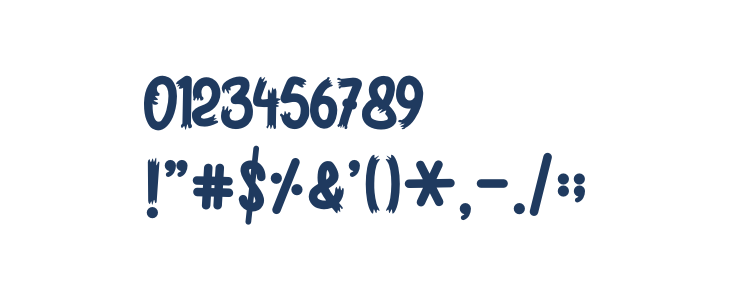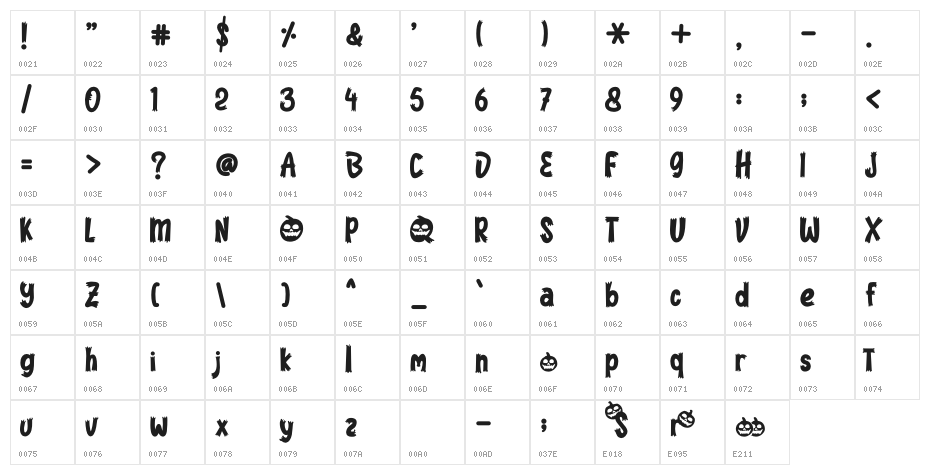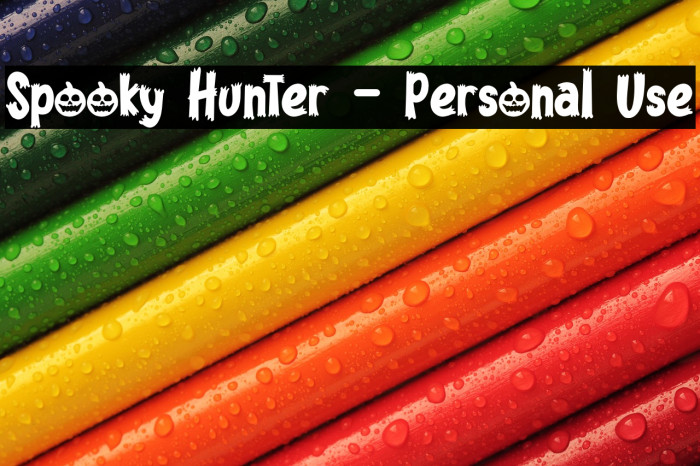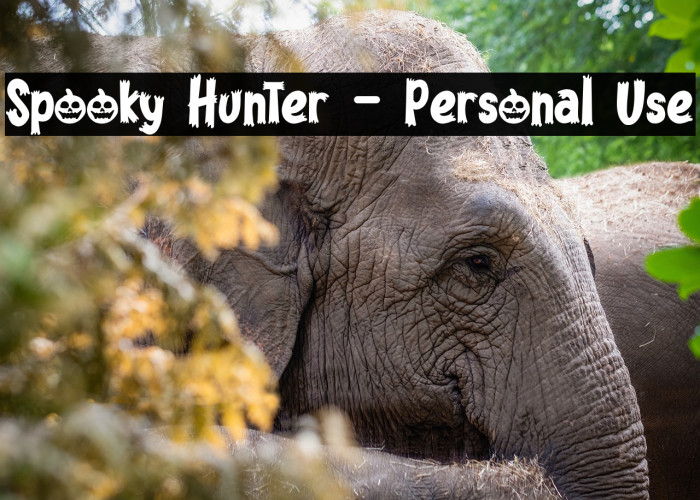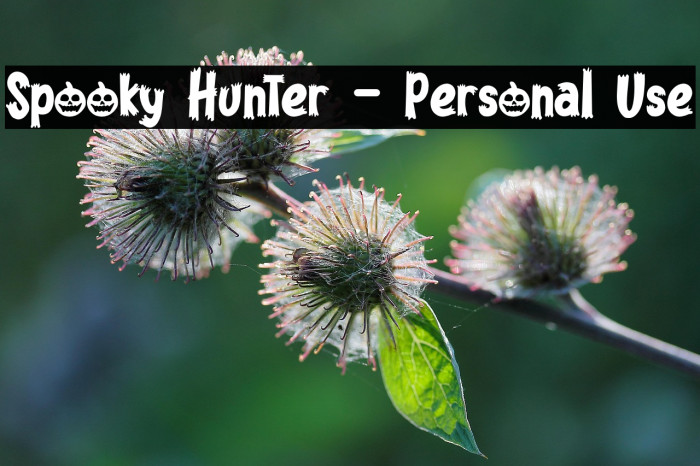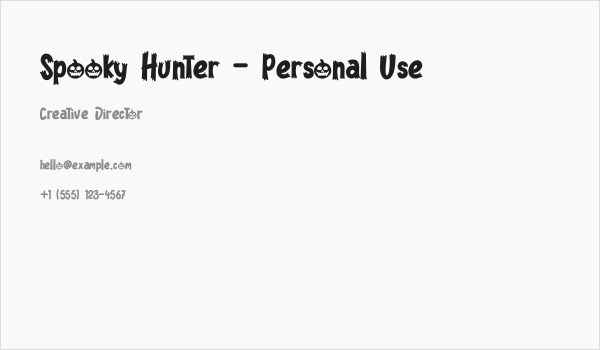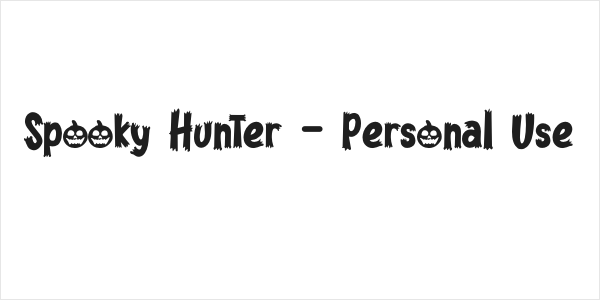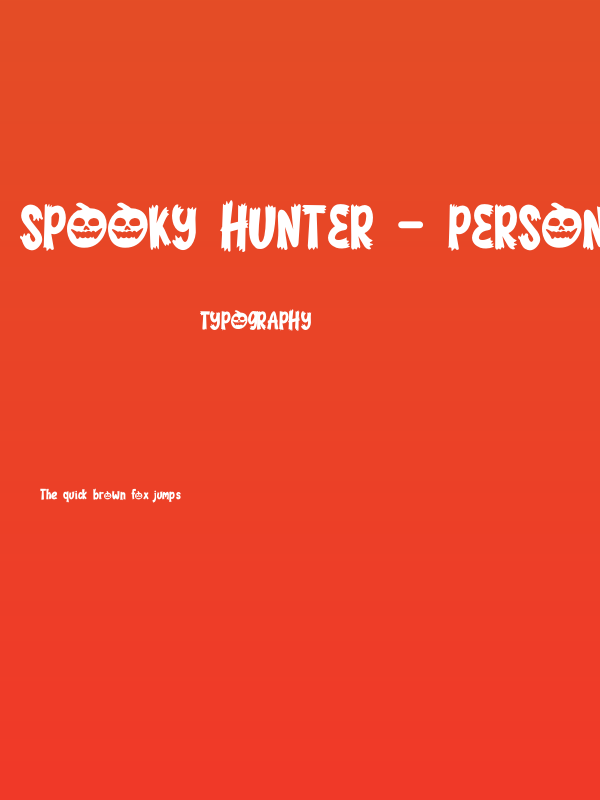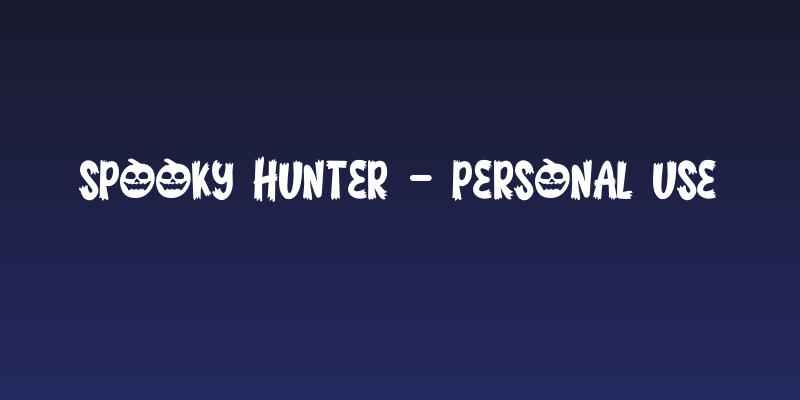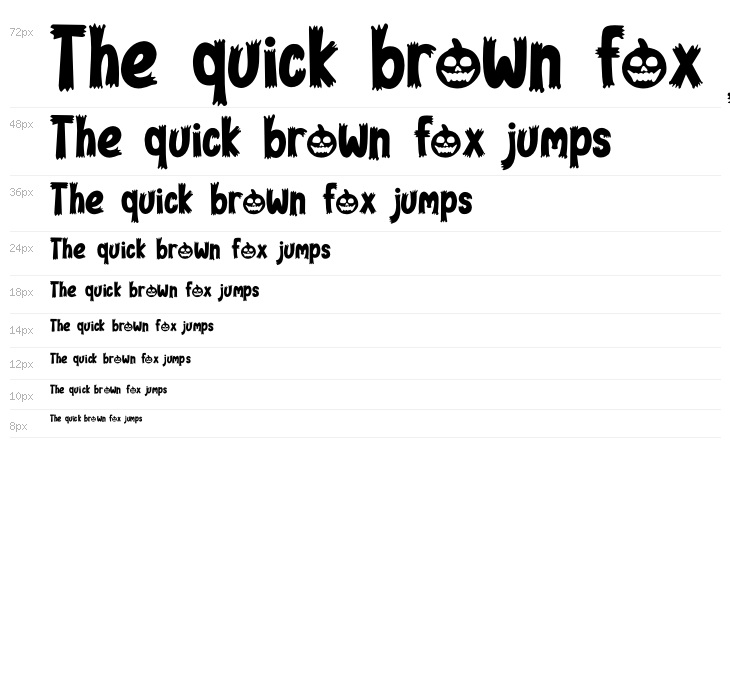
Spooky Hunter - Personal Use Font
Spooky Hunter - Personal Use Description
This font features a playful and spooky design, with jagged edges and a bold, irregular style that evokes a sense of Halloween fun. The uppercase letters are particularly striking, with some characters incorporating playful elements like pumpkin faces. The lowercase letters maintain the same jagged aesthetic, ensuring consistency throughout the typeface. Numbers and special characters are designed to match, making this font ideal for themed events or creative projects that require a touch of whimsy and fright. The overall appearance is bold and eye-catching, perfect for grabbing attention.
| Proposed Projects | Ideal for Halloween-themed events, party invitations, posters, and creative projects needing a spooky touch. |